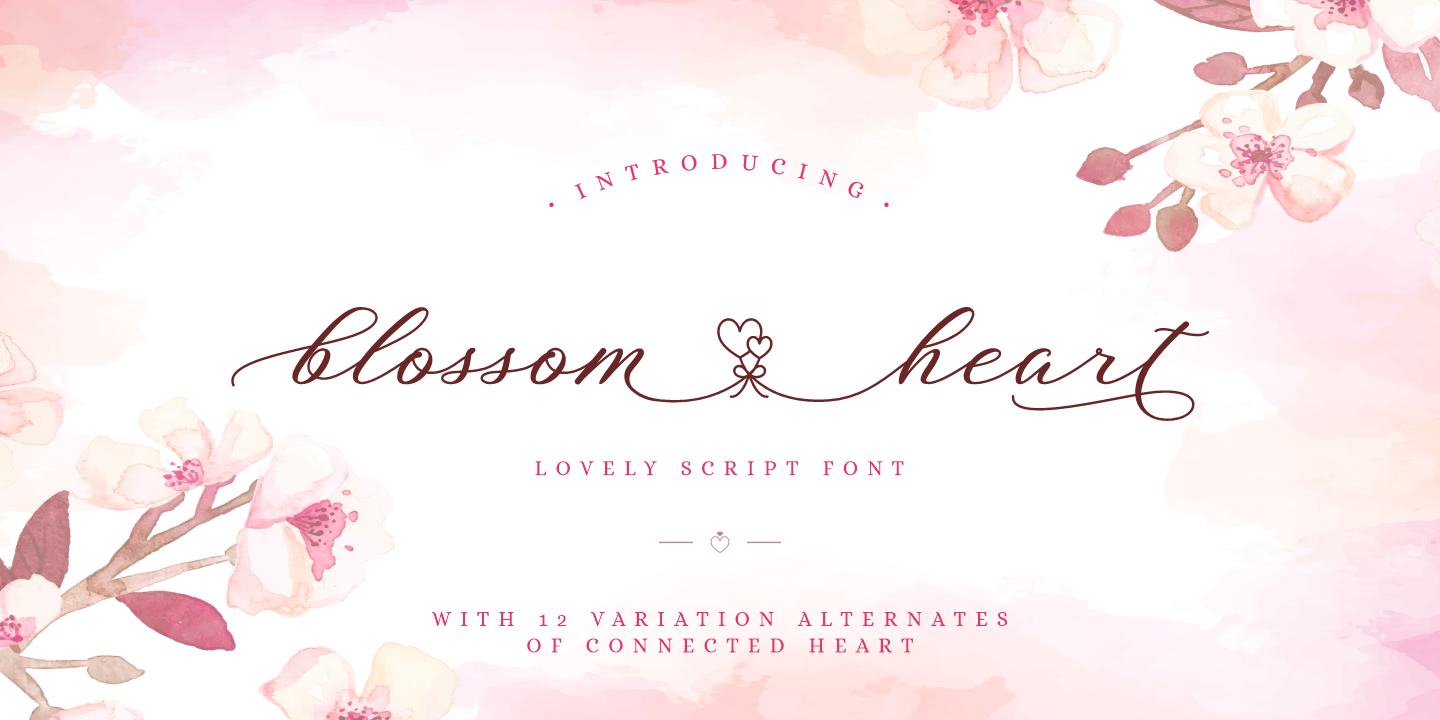
The Blossom Heart Font is perfect for wedding invitations, romantic greeting cards, floral boutique branding, feminine beauty products, spring festival posters, love letters, baby shower decorations, botanical artwork, Valentine's Day designs, and delicate social media graphics.
What makes the Blossom Heart Font exciting is its enchanting ability to capture the essence of blooming romance and natural beauty through every delicate letterform. This captivating typeface features flowing curves, graceful flourishes, and organic shapes that evoke the gentle elegance of flower petals dancing in a spring breeze. Each character radiates warmth and tenderness, creating an atmosphere of love, growth, and feminine charm that touches hearts instantly.
The Blossom Heart Font family includes regular, light, bold, and script versions, along with decorative floral ornaments, heart symbols, and botanical elements that enhance its romantic appeal across various design applications.
Whether you're designing intimate wedding materials or creating feminine brand identities, Blossom Heart Font Free Download brings natural elegance and romantic charm to every project. Its beautifully crafted letterforms ensure perfect readability while maintaining that essential delicate touch that makes viewers feel embraced by beauty. The font's special features include contextual alternates, swash characters, and floral ligatures that automatically create seamless, organic typography. Wedding designers and feminine brand creators consistently choose this font for projects requiring genuine romance and natural grace. The Blossom Heart Font transforms simple text into blooming expressions of love and beauty, making it an invaluable treasure in any designer's romantic typography garden.